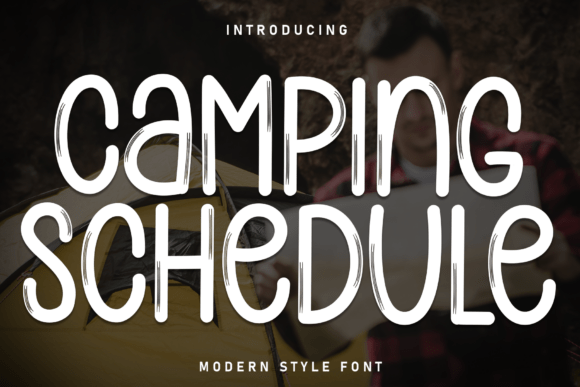
Camping Schedule Font: Unveiling a Captivating Handwritten Display Font
Are you tired of using the same old fonts for your creative projects? Look no further! Introducing the Camping Schedule Font, a handwritten display font that radiates a warm and welcoming aura. This font is not only adorable but also playful, making it an ideal choice for crafting sophisticated wedding invitations, custom-made cards, or giving any design a playful twist.
Key Features of Camping Schedule Font
- Handwritten Display Font: The Camping Schedule Font is a carefully crafted handwritten display font that exudes a sense of warmth and friendliness.
- Playful and Elegant: This font strikes the perfect balance between playfulness and elegance, making it suitable for a wide range of creative projects.
- Unique and Versatile: With its unique design, the Camping Schedule Font can be used for various purposes, from wedding invitations to custom cards, and even social media graphics.
Uses of Camping Schedule Font
The Camping Schedule Font is an incredibly versatile font that can be used in various creative projects. Here are some ideas to get you started:
- Wedding Invitations: Add a touch of elegance and playfulness to your wedding invitations with this beautiful font.
- Custom Cards: Create personalized cards for special occasions, such as birthdays, anniversaries, or holidays.
- Social Media Graphics: Use the Camping Schedule Font to create engaging social media graphics that showcase your brand’s personality.
- Event Posters: Design eye-catching event posters that grab attention and convey a sense of fun and excitement.
Benefits of Using Camping Schedule Font
So, why choose the Camping Schedule Font for your creative projects? Here are some benefits that make it an excellent choice:
- Stand Out from the Crowd: With its unique design, the Camping Schedule Font will help your projects stand out from the crowd and grab attention.
- Conveys Emotion: This font conveys a sense of warmth, friendliness, and playfulness, making it perfect for projects that require a personal touch.
- Easy to Read: Despite its playful design, the Camping Schedule Font is easy to read, making it suitable for both digital and print projects.
Tips for Using Camping Schedule Font
To get the most out of the Camping Schedule Font, here are some tips to keep in mind:
- Pair with Other Fonts: Experiment with pairing the Camping Schedule Font with other fonts to create a unique and visually appealing design.
- Use in Moderation: While the Camping Schedule Font is playful and fun, it’s essential to use it in moderation to avoid overwhelming your design.
- Experiment with Colors: Try out different colors and color combinations to find the perfect match for your project and font.
In conclusion, the Camping Schedule Font is a captivating handwritten display font that radiates a warm and welcoming aura. Its unique design makes it an ideal choice for crafting sophisticated wedding invitations, custom-made cards, or giving any creative design a playful twist. With its versatility, ease of use, and emotional conveyance, this font is sure to become a favorite among designers and creatives.